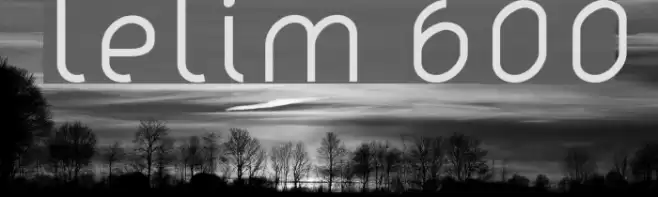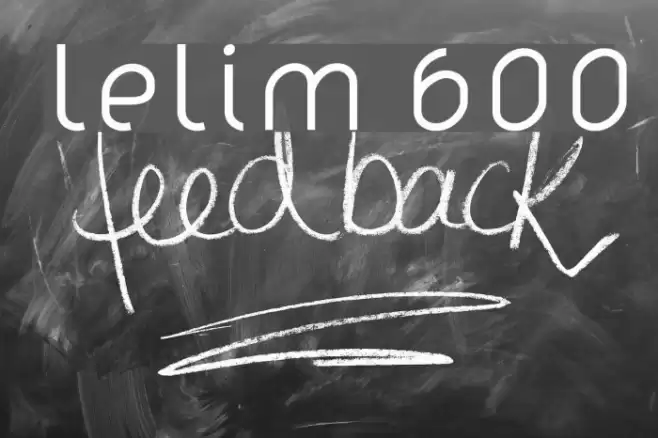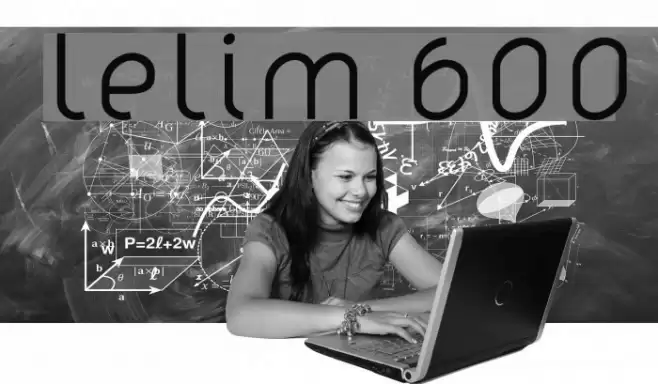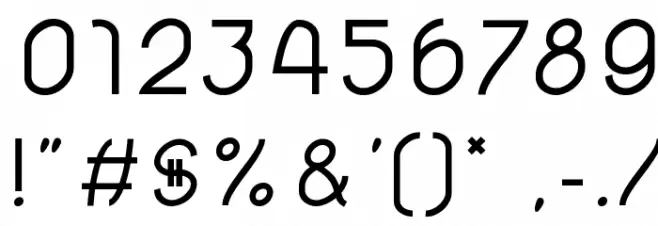
lelim 600 Font
lelim 600 Description
This font features a clean and modern design with geometric influences. The characters are constructed with a uniform stroke width, giving it a balanced and harmonious appearance. The uppercase letters are bold and structured, while the lowercase letters maintain a rounded and approachable feel. The numerals are clear and legible, making them suitable for various applications. Special characters are designed with the same geometric precision, ensuring consistency throughout the typeface. This font is versatile, suitable for both digital and print media, and can be used effectively in a variety of design contexts.
A modern, geometric sans-serif font with uniform stroke width and clean lines from Uncategorized fonts.
- Proposed Projects: Ideal for branding, web design, advertising, and editorial layouts.
- Use Case: Headlines, Body text, Logos